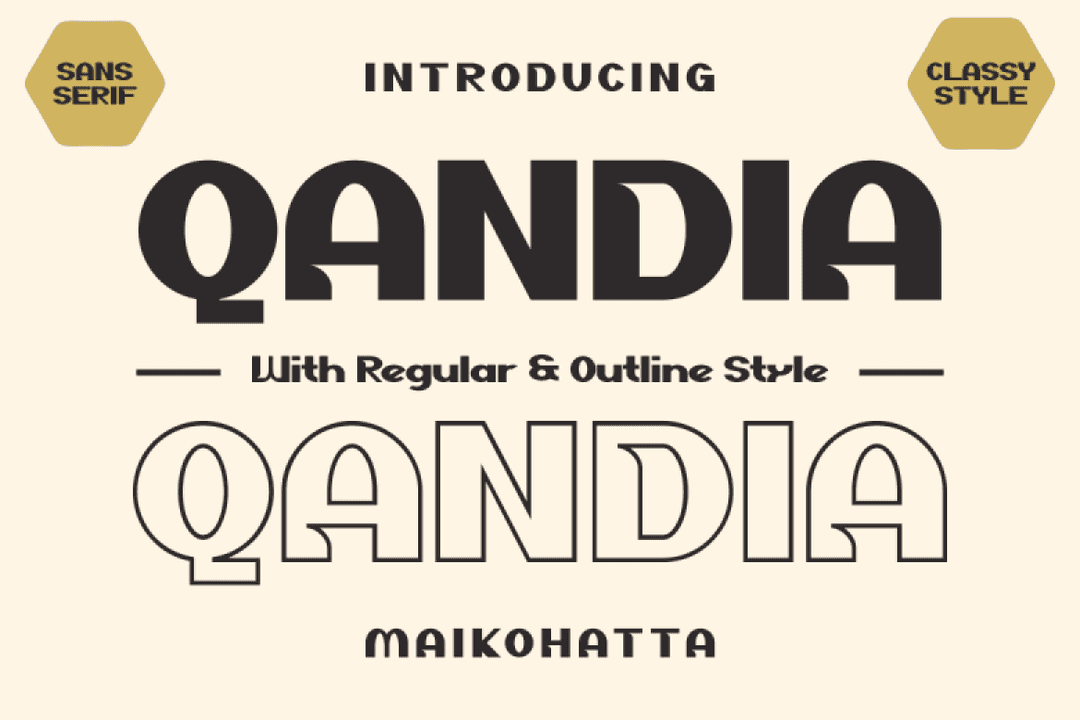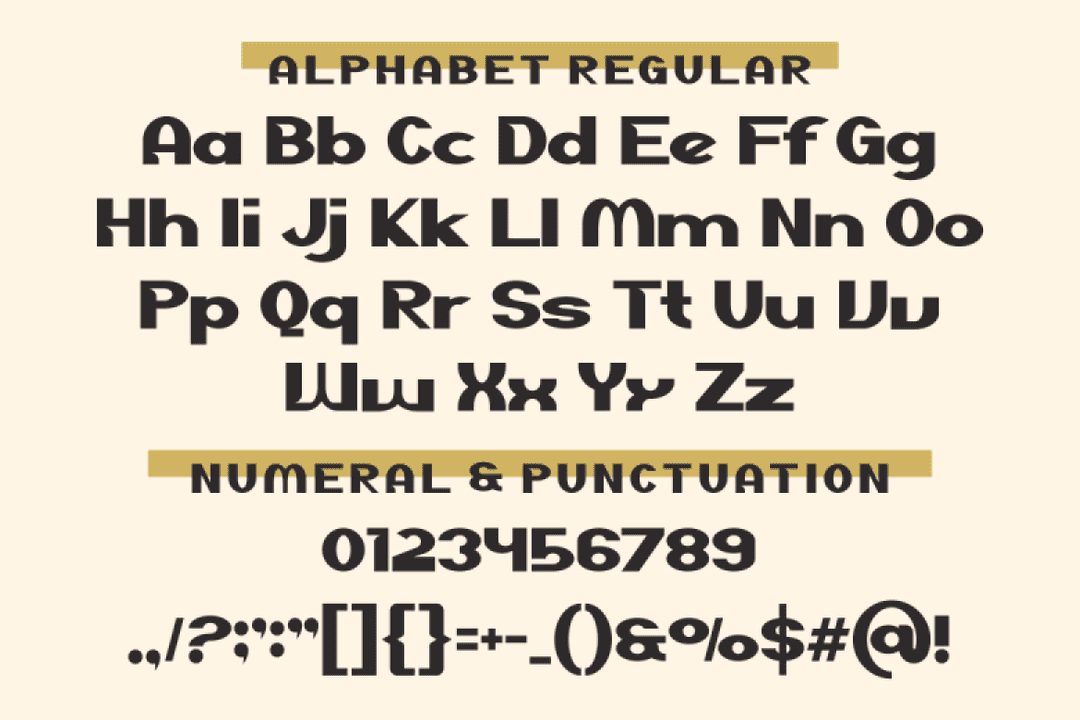
Qandia letters feature bold and striking curves and edges, making it the ideal choice for logos, headlines and short phrases in designs requiring elegant flourishes.